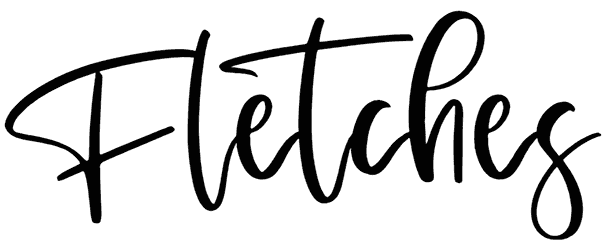
Fletches Font
Today we are going to introduce you to Fletches, a handwritten font that comes with a complete set of lovely characters, but might be a bit unreadable. It has a cursive style that is gracefully shaped by its gentle lines.
Featuring a fun and organic display allows it to add a personal touch to your design that everyone can communicate with. This thank you font will be a great choice for birthday invitation cards, book covers, advertisements, feminine branding, and watermarks. Enjoy!